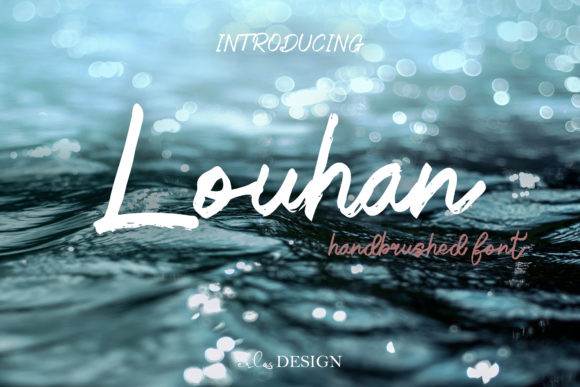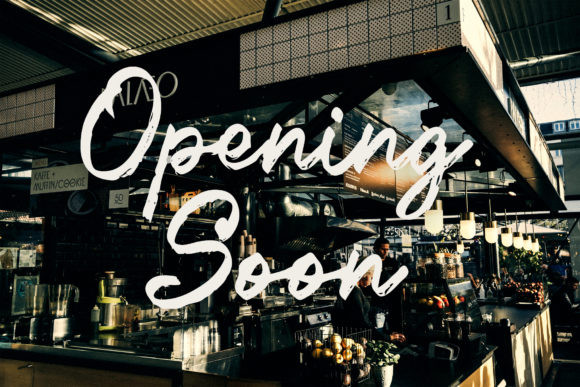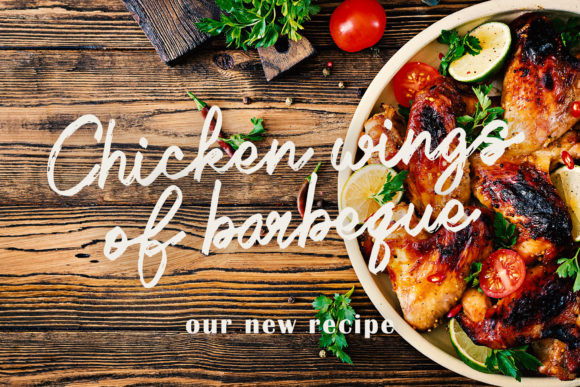
Louhan Font
Louhan is a fashionable and trendy brushed handwritten font. It has a cool and neat style and it will most certainly be a hit for any design that you wish to develop.